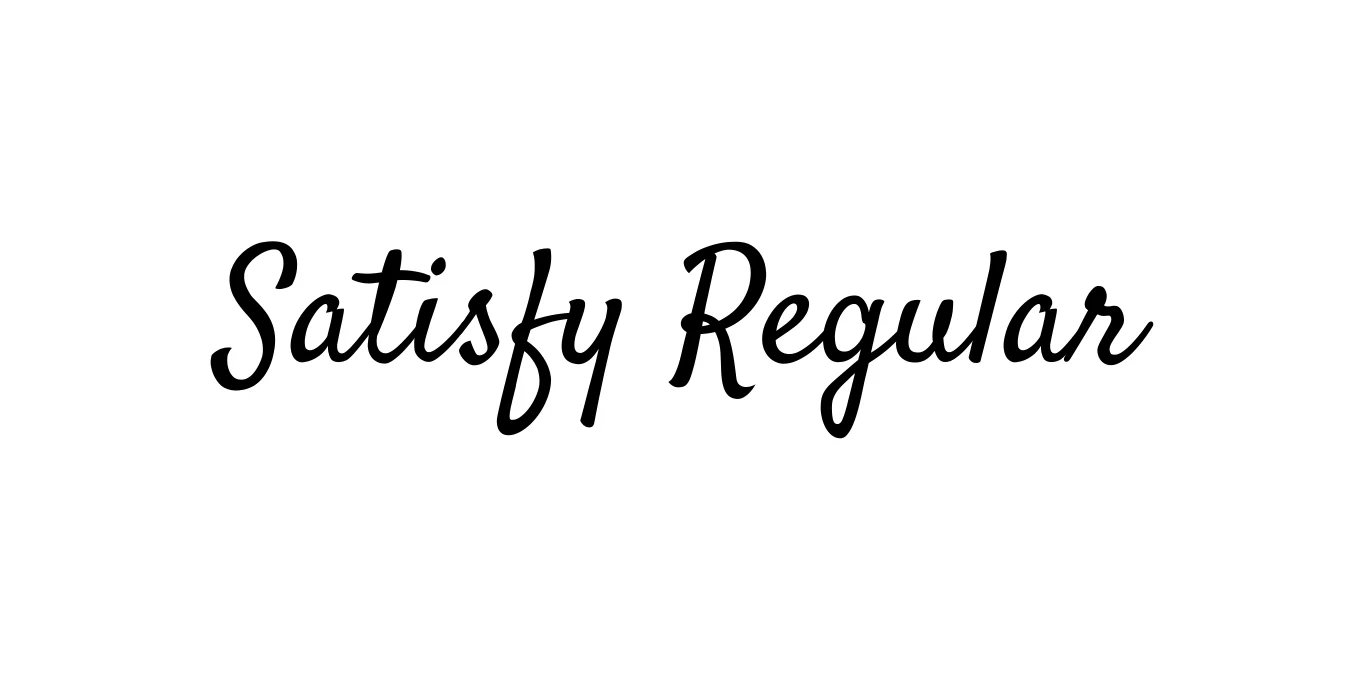
Satisfy Regular
Designed by Squid
Satisfy is a beautiful brush script typeface created by Squid (Dave Cohen) for Sideshow. Released in 2011, this font was designed to provide a timeless, classic look while maintaining a modern flair. Its fluid strokes and connected characters mimic the natural movement of hand-lettering, offering a perfect balance between professional craftsmanship and a friendly, approachable personality.
Inspired by mid-century signage and vintage advertising, Satisfy Regular is highly versatile. It works exceptionally well in both print and digital environments, standing out as an expressive choice for designers who need a font that feels both nostalgic and contemporary. Its clean lines ensure readability even at smaller sizes, which is a rare feat for many brush-style scripts.
Satisfy Regular Best Uses
Creates approachable and stylish brand identities with a personal touch.
Excellent for high-engagement quote graphics and stylish captions.
Adds an elegant, handwritten feel to wedding stationery and event cards.
Ideal for artisanal products and boutique labels seeking a retro vibe.